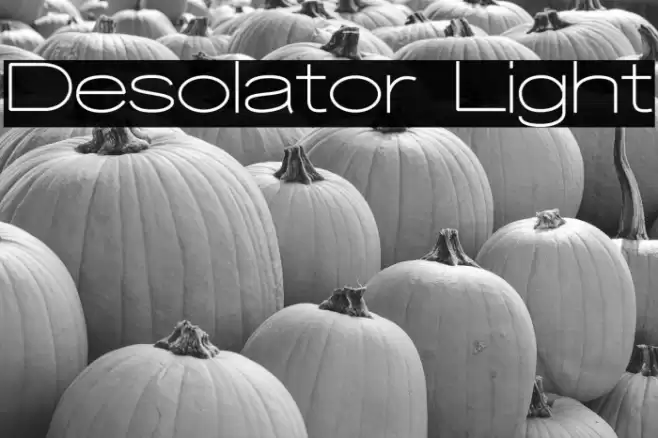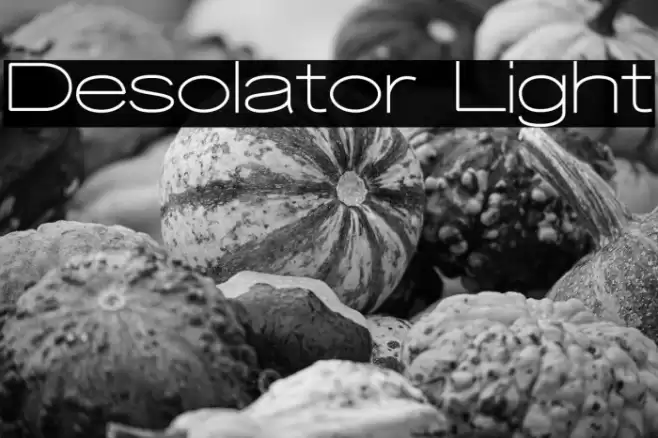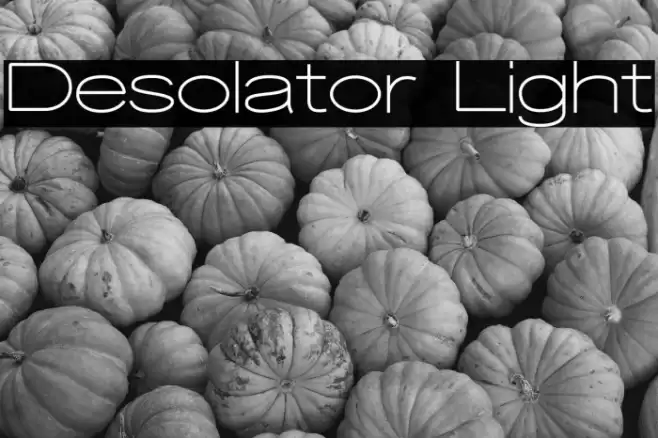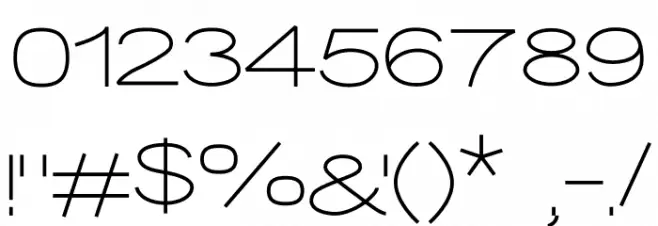
Desolator Light Font
Desolator Light Description
This typeface presents a sleek and modern aesthetic with its thin, uniform lines and geometric shapes. The characters are crafted with precision, offering a clean and minimalist look. The uppercase letters are tall and slightly elongated, while the lowercase letters maintain a consistent height, contributing to a harmonious appearance. The numerals are designed with the same attention to detail, ensuring readability and style. Special characters are included, maintaining the font's overall elegance. This typeface is ideal for projects that require a contemporary and sophisticated touch.
A sleek, modern typeface with thin, geometric lines and a minimalist design from Regular fonts.
- Proposed Projects: Ideal for branding, modern web design, tech-related projects, and minimalist print materials.
- Use Case: Headlines, Logos, Branding